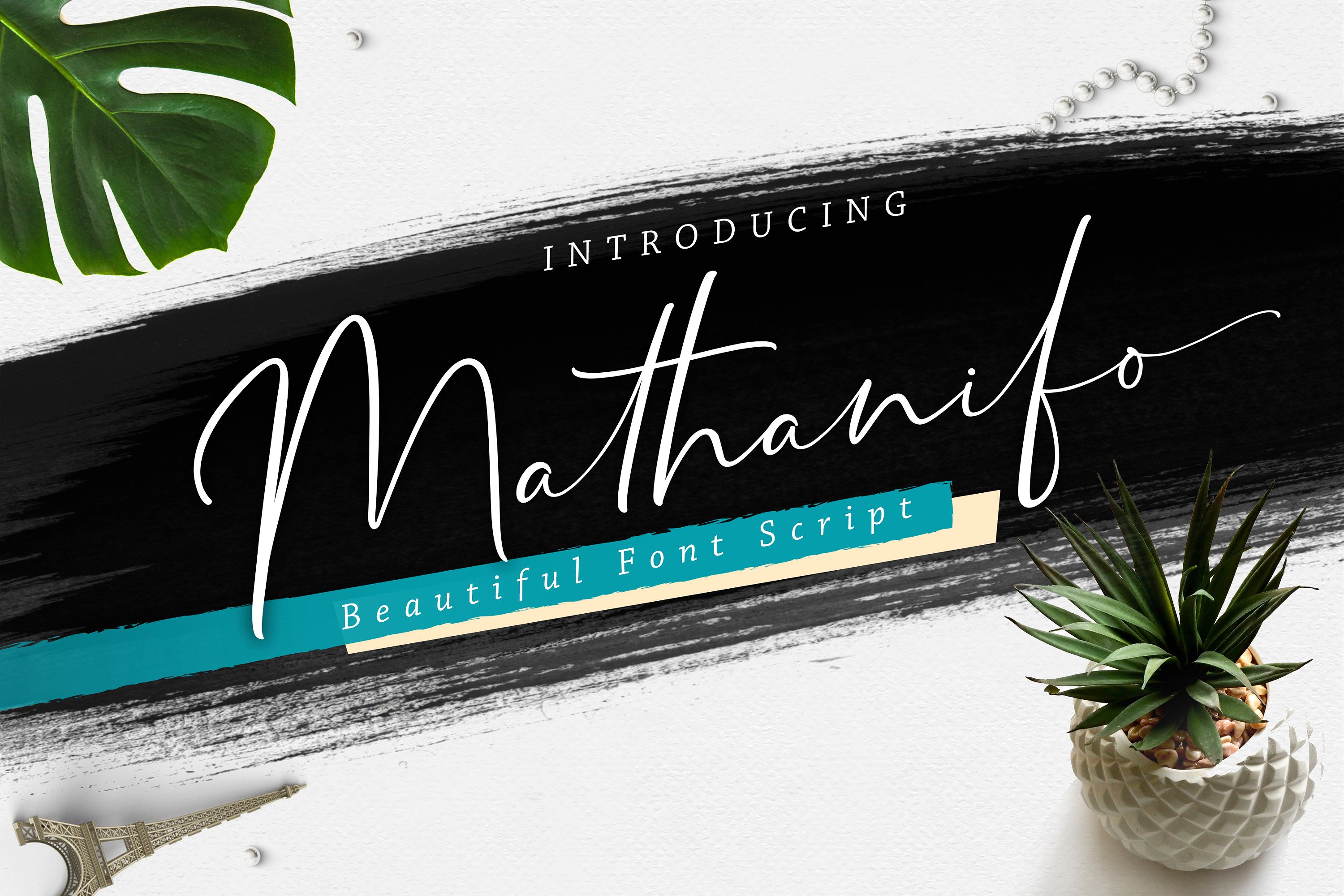
Mathanifo Handwritten
Mathanifo Handwritten Font
Mathanifo Script is a unique, cool and modern handwritten font. It’s hand look style makes it perfect for use in all your design projects be it logos, signatures, labels, packaging design, blog headlines.